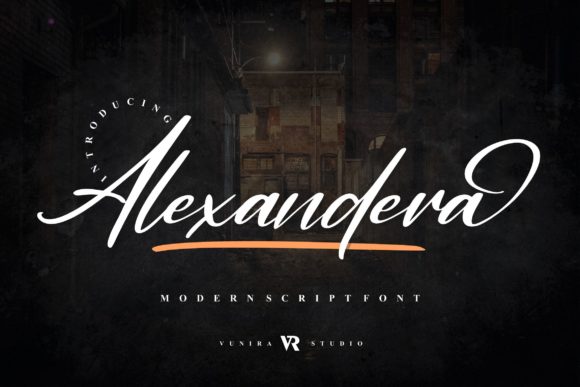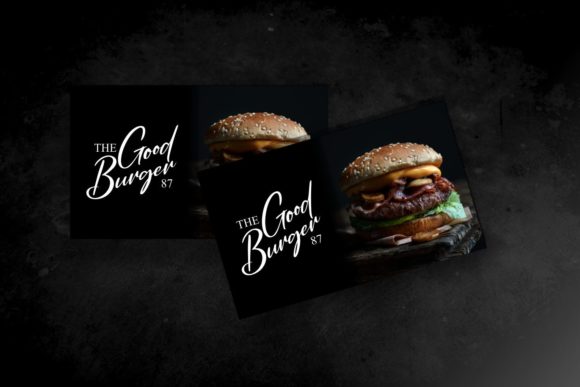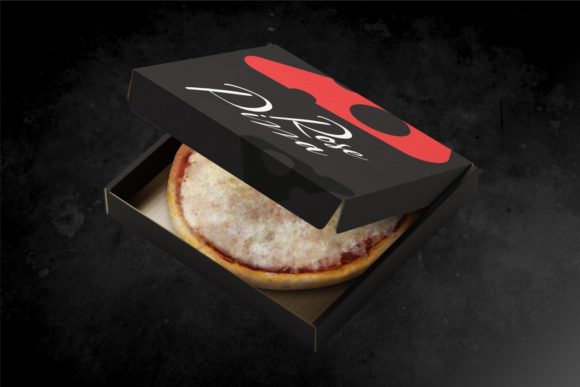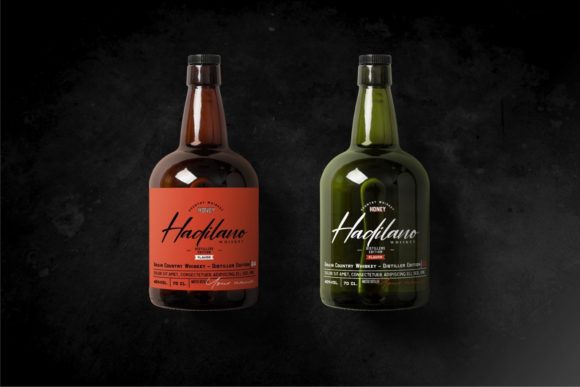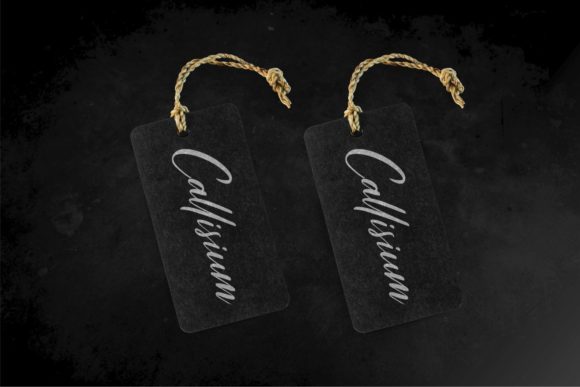
About Alexandera Font
Alexandera is a sweet and cursive handwritten font. This gentle font will look gorgeous on a variety of design ideas. It will add a joyful and romantic touch to each of your projects!